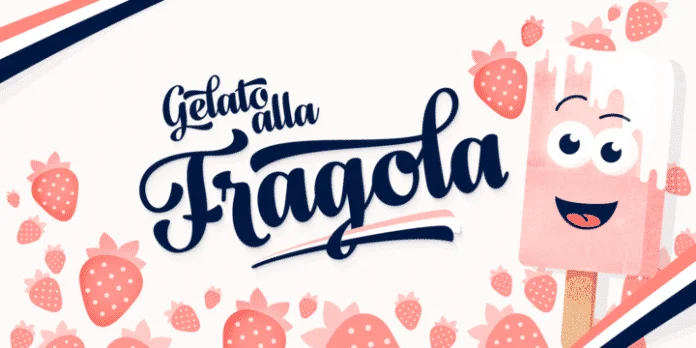
Fragola Font is perfect for sweet bakery branding, fruit product packaging, dessert shop logos, ice cream parlor signage, children's party invitations, candy store marketing, fresh juice bar menus, organic fruit farm branding, playful food blogs, and delightful designs that celebrate sweetness, freshness, and the joyful deliciousness of strawberries and natural treats.
This font is exciting because it captures the fresh, sweet essence of ripe strawberries through charming letterforms that feel both playful and appetizing. The delightful character design evokes the natural sweetness and vibrant energy of fresh fruit, making it ideal for projects that need to communicate freshness, natural goodness, and the irresistible appeal of wholesome delicious treats that bring smiles and satisfaction.
The Fragola Font family typically includes uppercase and lowercase characters, numerals, punctuation marks, fruit-themed decorative elements, and playful glyphs that provide versatility for creating sweet, appetizing designs with fresh organic appeal and cheerful personality.
Whether you're designing for food businesses, creating appetizing product packaging, or developing brand identities for establishments celebrating natural sweetness and fresh ingredients, Fragola Font Free Download provides the perfect typographic expression of delicious freshness. Its sweet character and playful charm make every project feel more inviting and appetizing, ensuring your designs effectively convey natural goodness, wholesome quality, and the delightful sweetness that makes taste buds dance with joy.